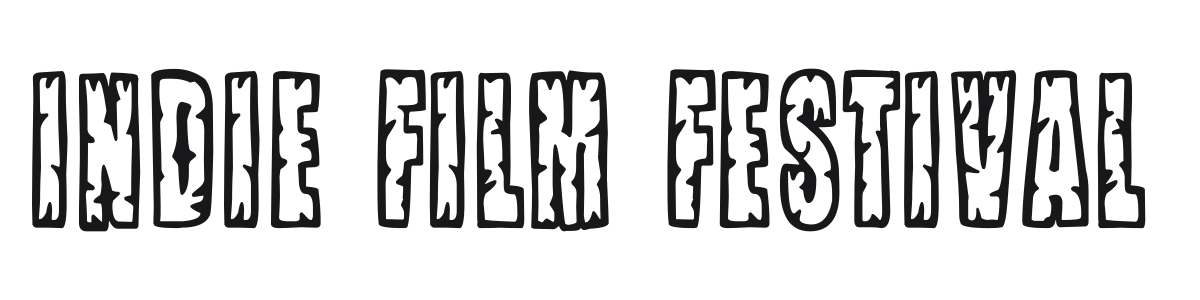
Indie Film Festival
Indie Film Festival is a heavily distressed inline serif with bold condensed forms and a cracked, splintered texture throughout. The inline treatment carves a white channel through each thick stem, adding depth and a vintage printed feel. It suits film posters, festival branding, and any headline that needs raw, underground energy.